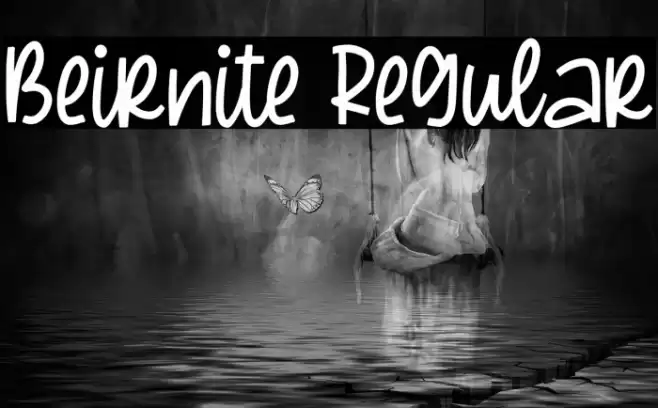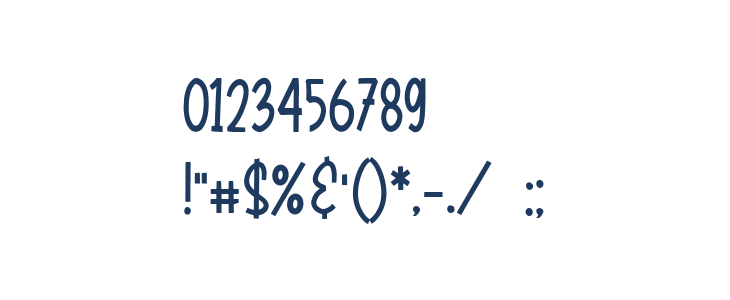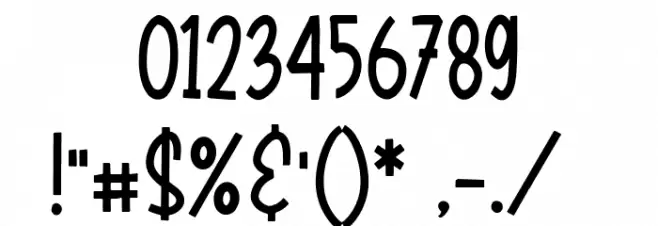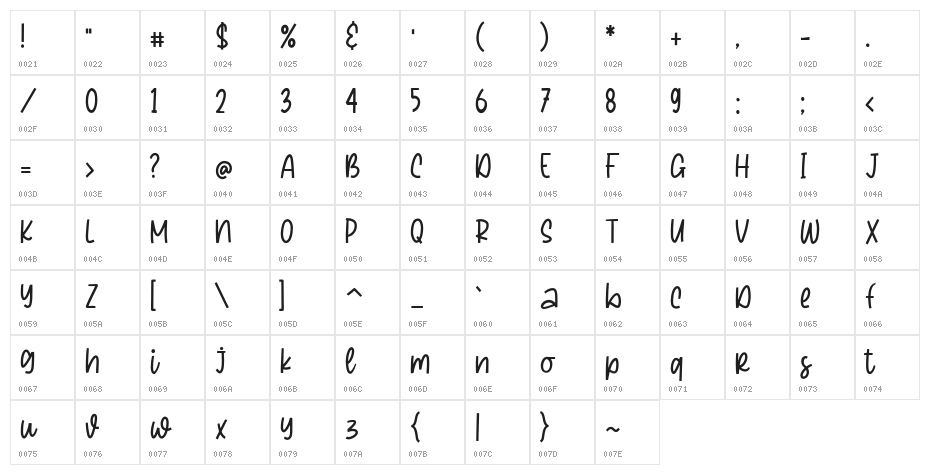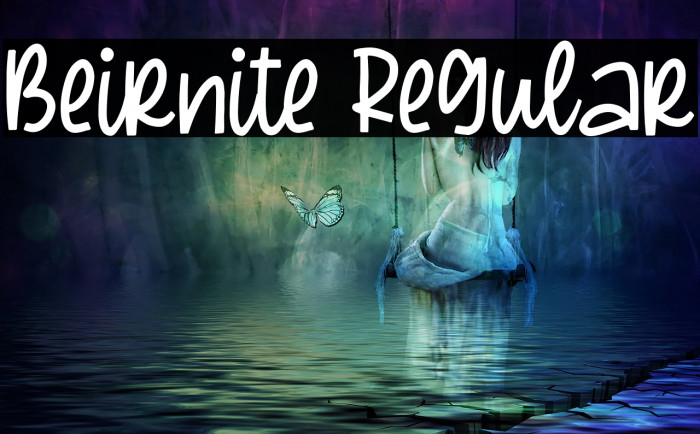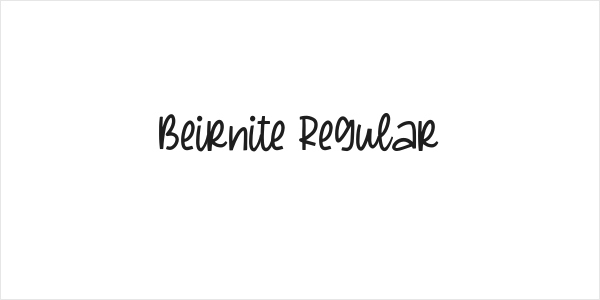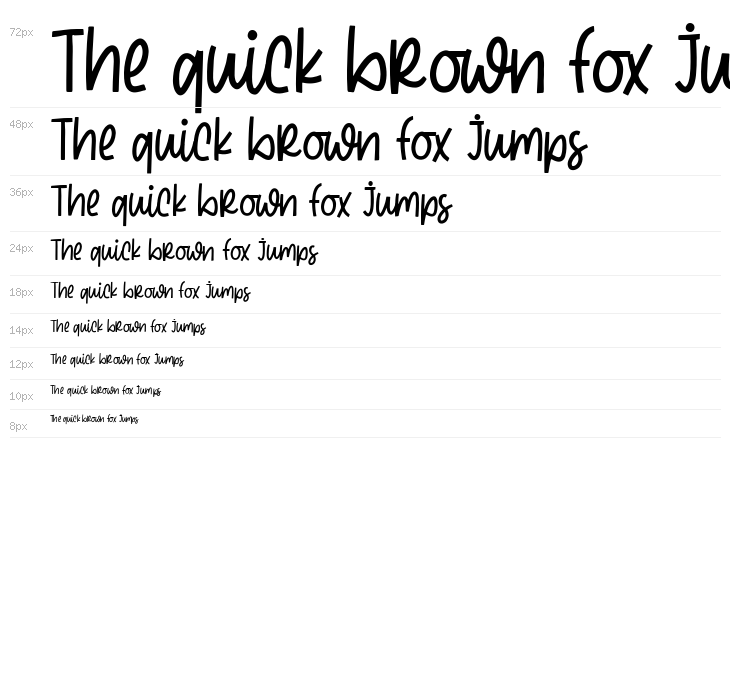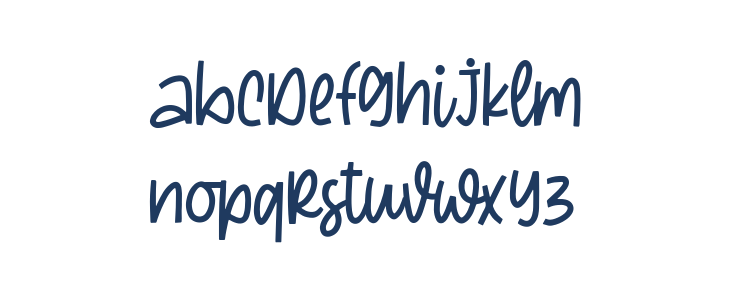
Beirnite Regular Font
Beirnite Regular Description
This playful and energetic font features a handwritten style with a casual and friendly appearance. The letters are slightly slanted, giving it a dynamic feel, while maintaining legibility. The strokes are consistent in width, with rounded edges that add a touch of softness. The uppercase and lowercase letters are well-balanced, and the numerals are clear and easy to read. Special characters are included, maintaining the same lively style. This font is perfect for projects that require a personal and approachable touch.
A playful handwritten font with a casual and friendly style from Cartoon fonts.
- Proposed Projects: Ideal for greeting cards, children's books, casual branding, and social media graphics.
- Overall Style: Casual, Playful
- Use Case: Headlines, Logos, Informal Text